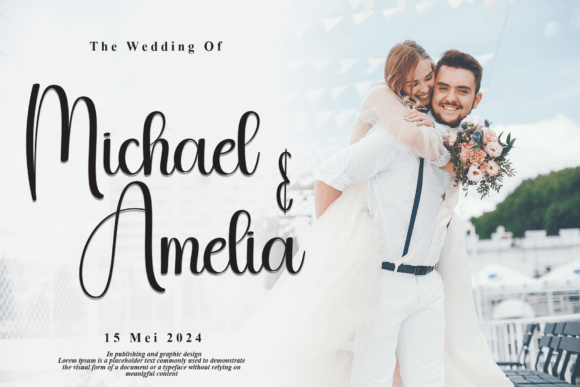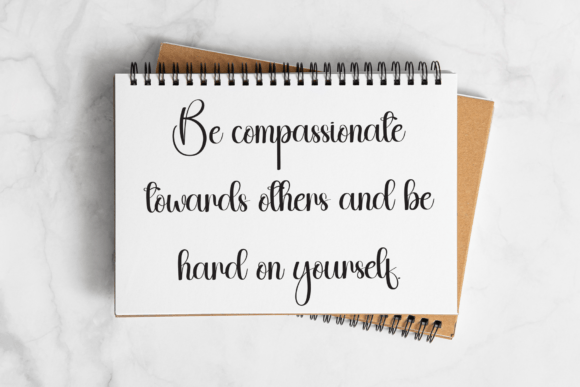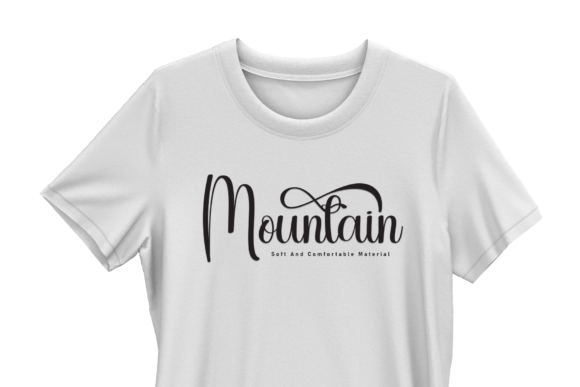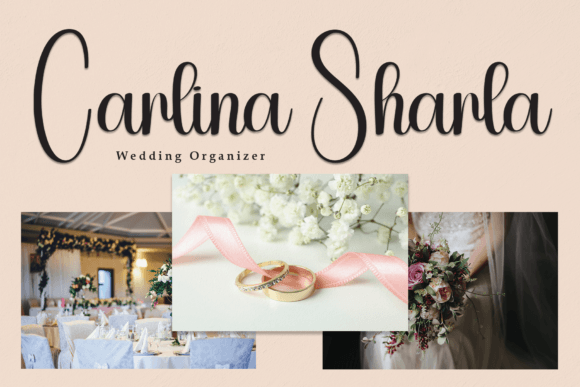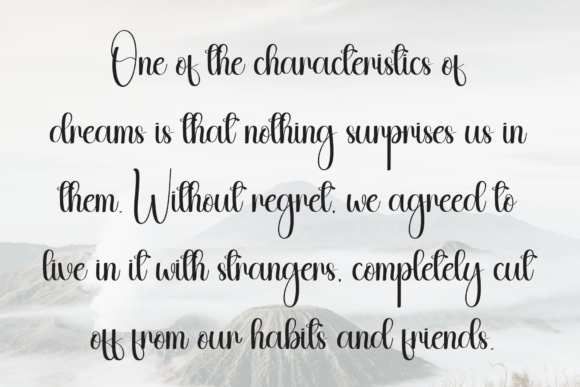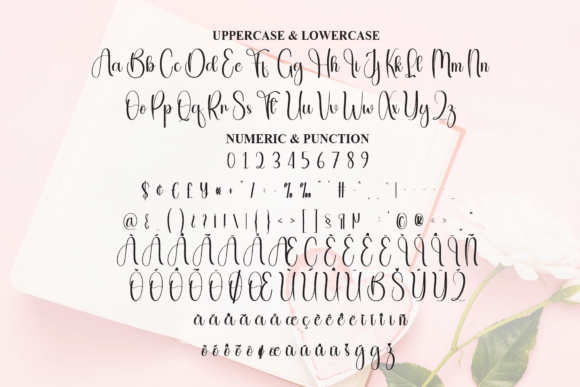
Introducing Booklove Font: The Charming Handwritten Style for Your Designs
Are you looking for a font that adds a sweet, personal touch to your designs? Look no further than Booklove Font, a charming handwritten style that’s perfect for invitations, greeting cards, and cozy branding. With its smooth, flowing strokes and friendly character, Booklove is sure to bring warmth and personality to your projects.
The Characteristics of Booklove Font
Booklove Font is a beautifully crafted handwritten font that exudes a sense of warmth and approachability. Its smooth, flowing strokes give it a natural, effortless feel that’s perfect for creating inviting and engaging designs. The font’s friendly character makes it ideal for use in a variety of applications, from formal invitations to casual greeting cards.
Perfect for Invitations and Greeting Cards
Whether you’re designing invitations for a special occasion or creating greeting cards for loved ones, Booklove Font is the perfect choice. Its charming, handwritten style adds a personal touch that’s sure to make your designs stand out. The font’s clear and legible letters ensure that your message is conveyed with ease, making it perfect for both formal and informal occasions.
Coziness and Warmth for Your Branding
Booklove Font is not just limited to invitations and greeting cards; it’s also perfect for adding a touch of coziness and warmth to your branding. Whether you’re a small business owner or an entrepreneur, this font can help you create a friendly and approachable brand identity that’s sure to resonate with your target audience. From packaging to website design, Booklove Font can add a personal touch that’s sure to make your brand stand out.
Why Choose Booklove Font?
So, why choose Booklove Font for your designs? Here are just a few reasons why this charming handwritten font is a great choice:
- Unique and Personalized: Booklove Font adds a unique and personalized touch to your designs, making them stand out from the crowd.
- Easy to Read: The font’s clear and legible letters ensure that your message is conveyed with ease, making it perfect for both formal and informal occasions.
- Versatile: Booklove Font can be used in a variety of applications, from invitations and greeting cards to branding and packaging.
- High-Quality: This font is designed to deliver high-quality results, ensuring that your designs look professional and polished.
Tips for Using Booklove Font
In conclusion, Booklove Font is a charming handwritten font that’s perfect for adding a sweet, personal touch to your designs. With its smooth, flowing strokes and friendly character, it’s ideal for invitations, greeting cards, and cozy branding. Whether you’re a designer, crafter, or small business owner, Booklove Font is sure to bring warmth and personality to your projects. So why wait? Download Booklove Font today and start creating beautiful, inviting designs that are sure to delight!